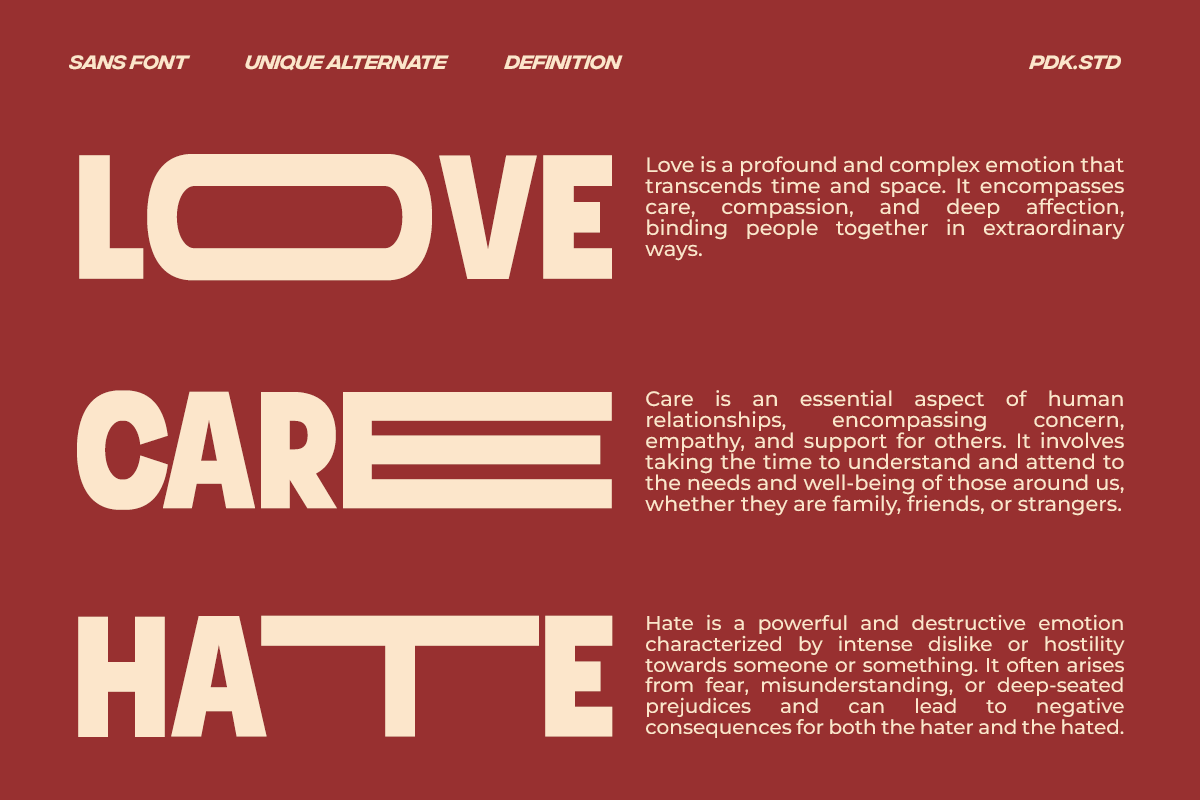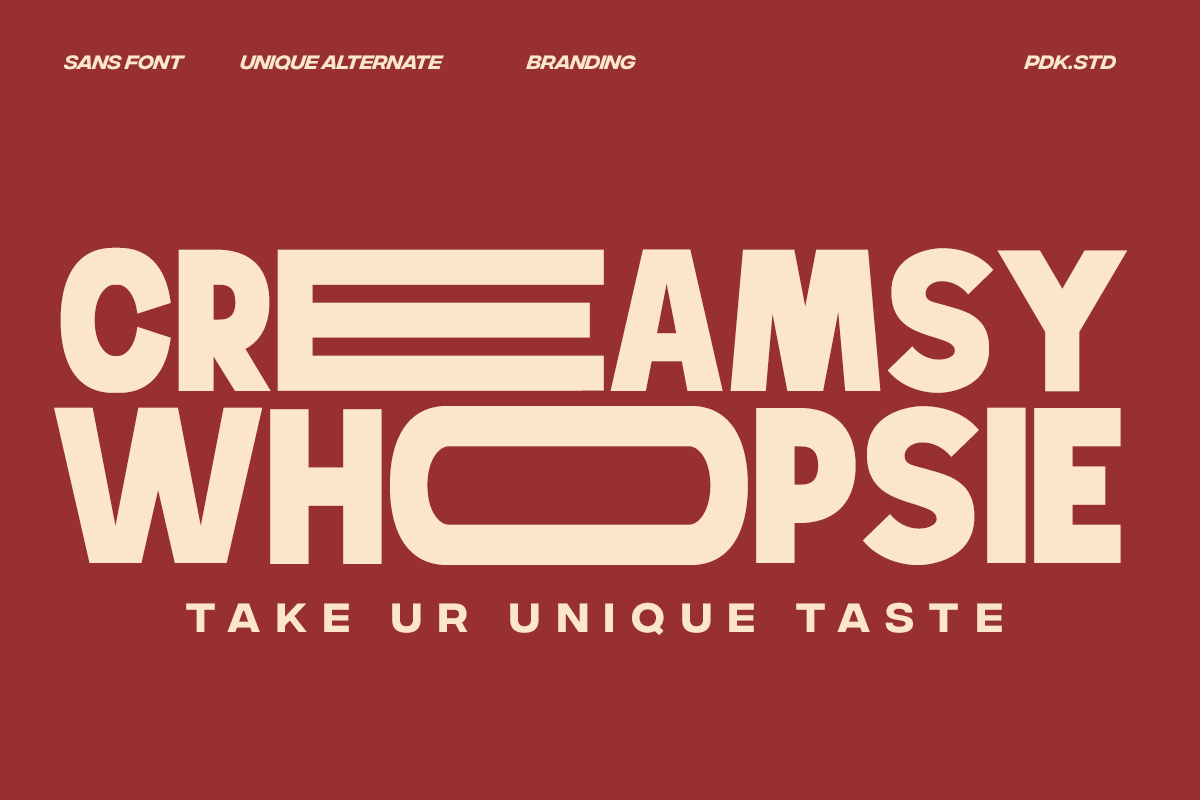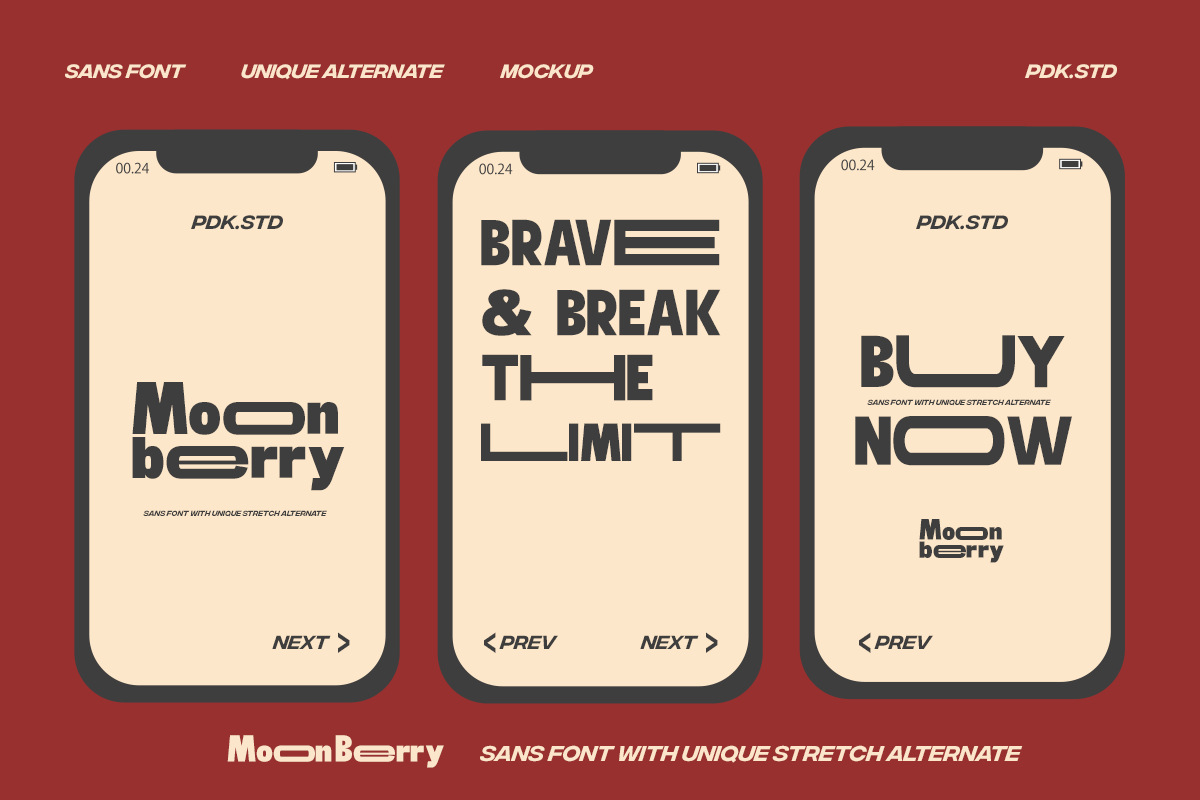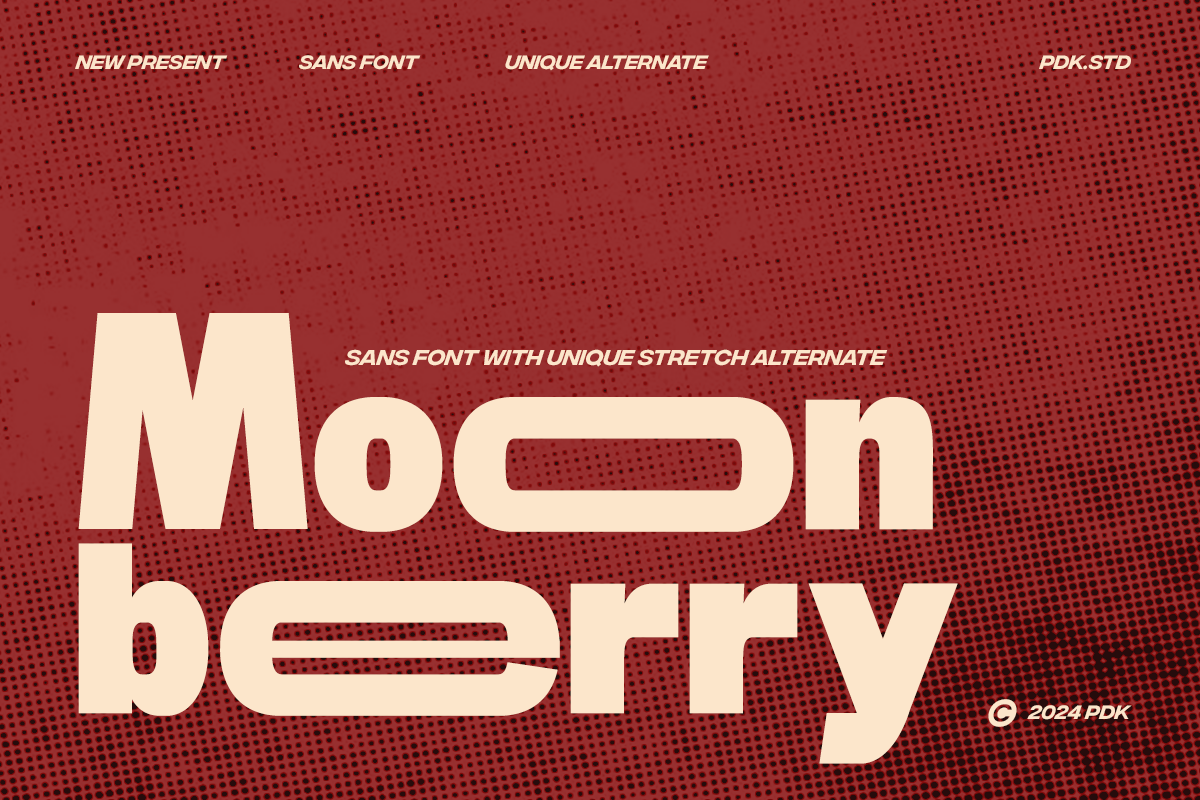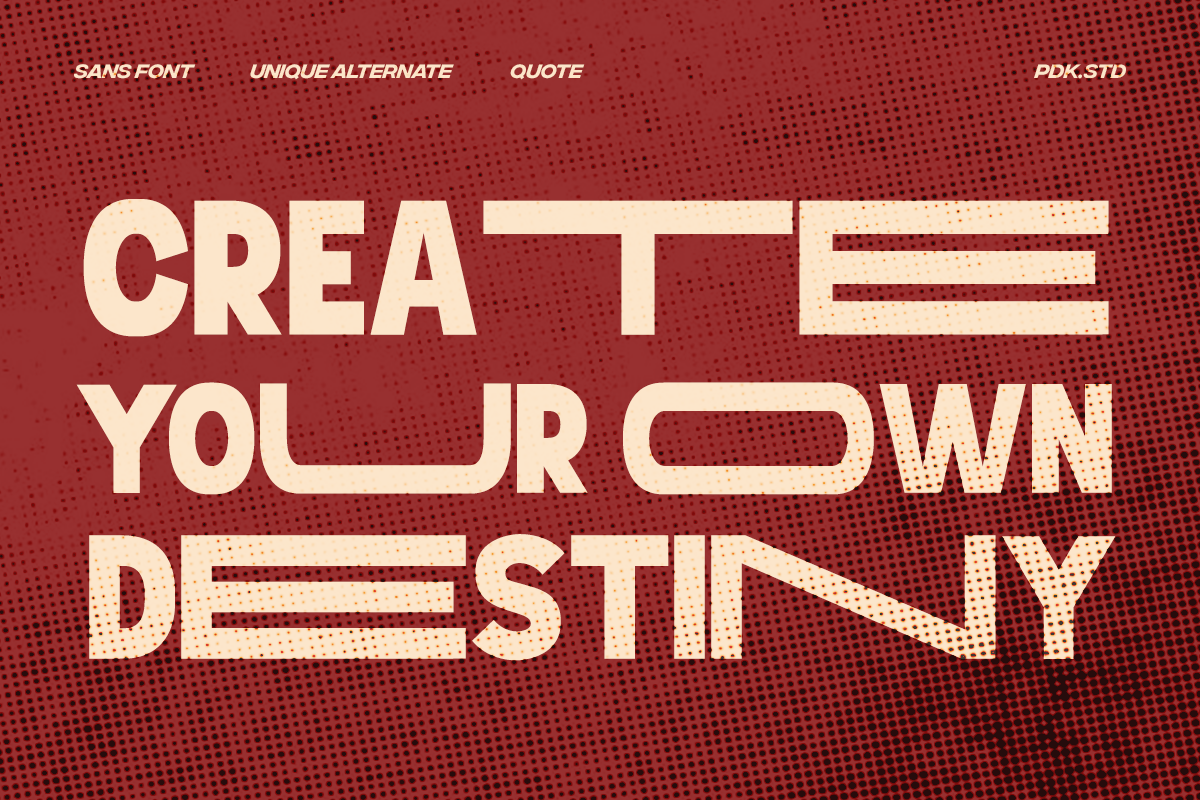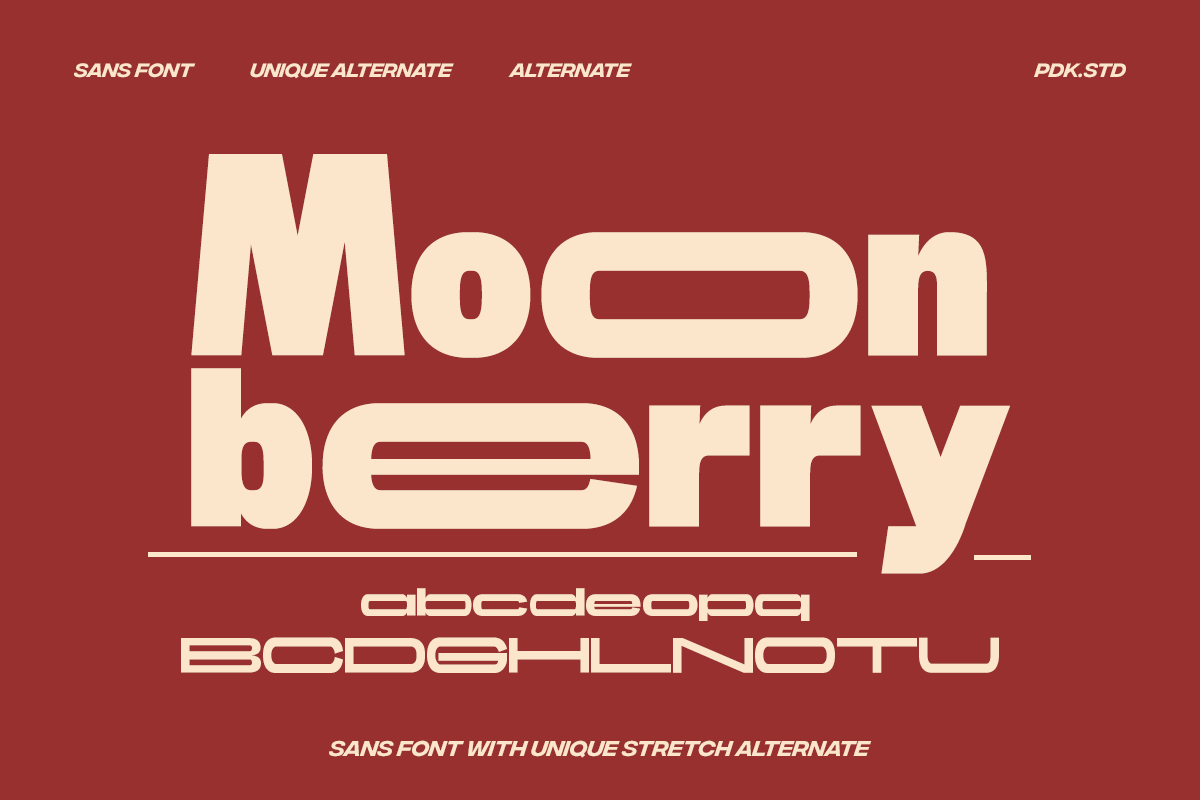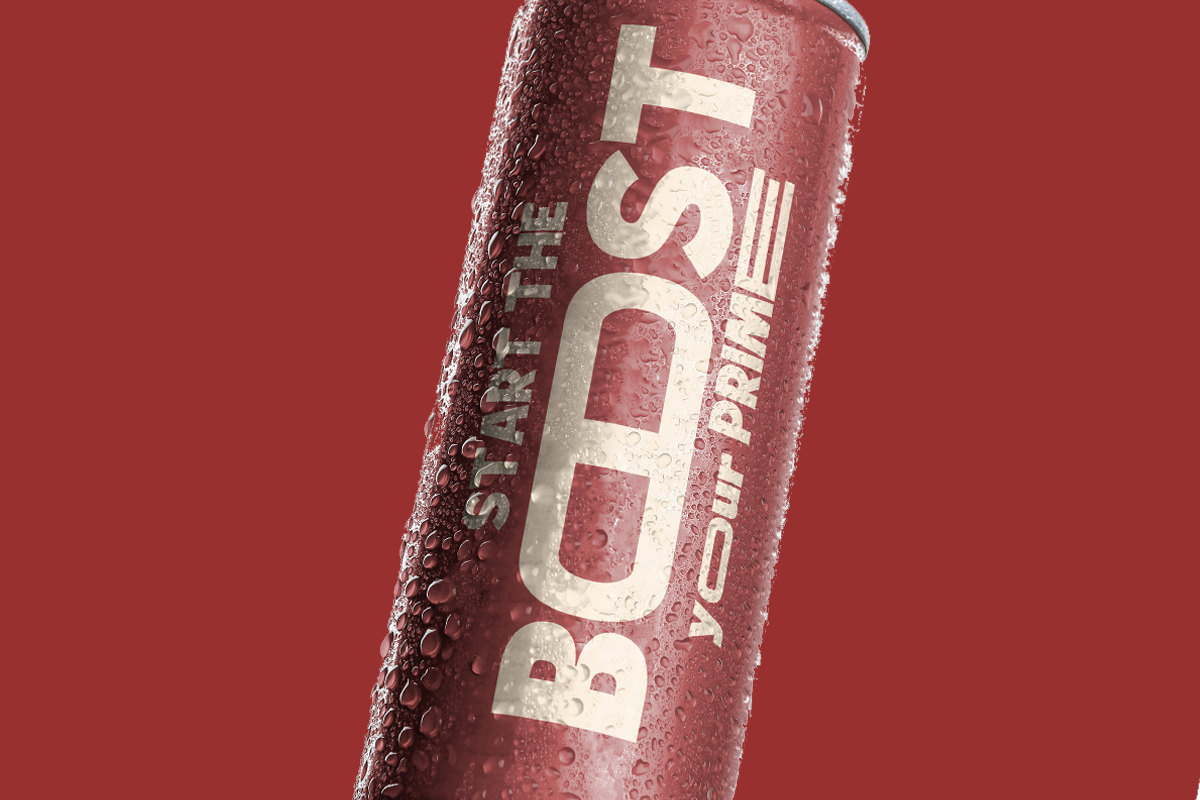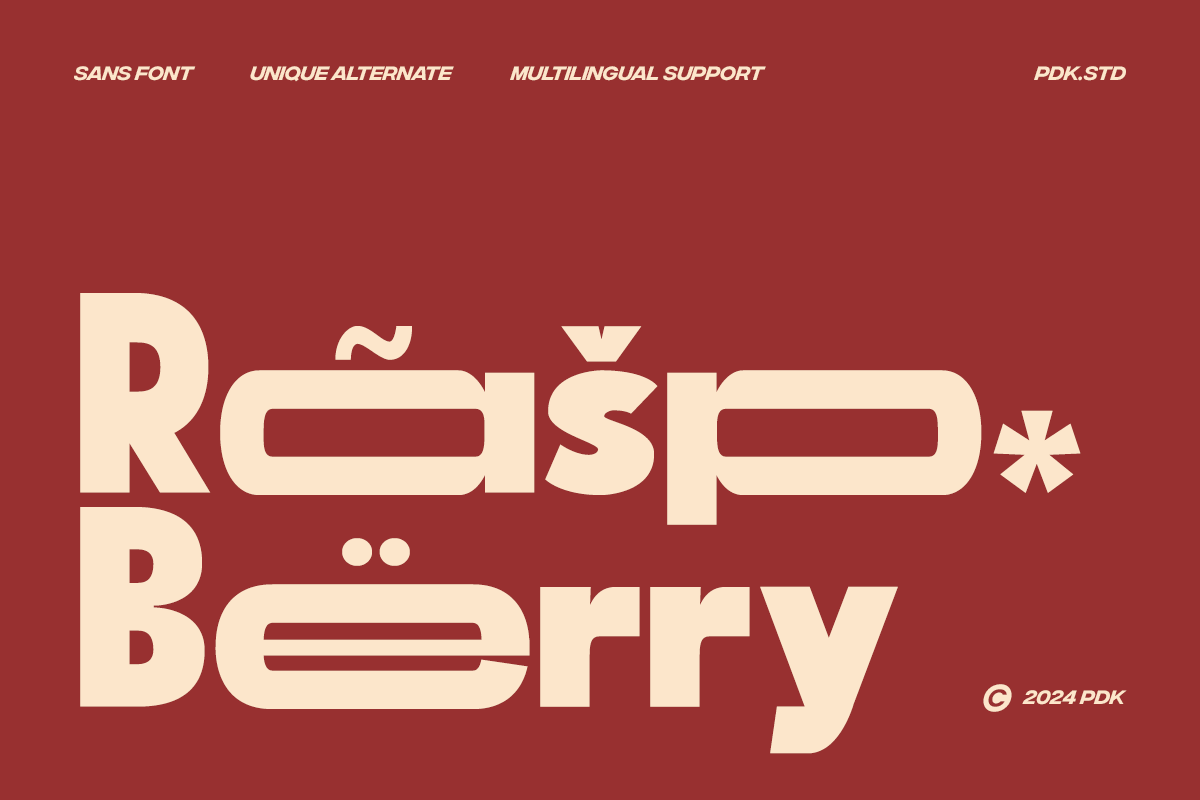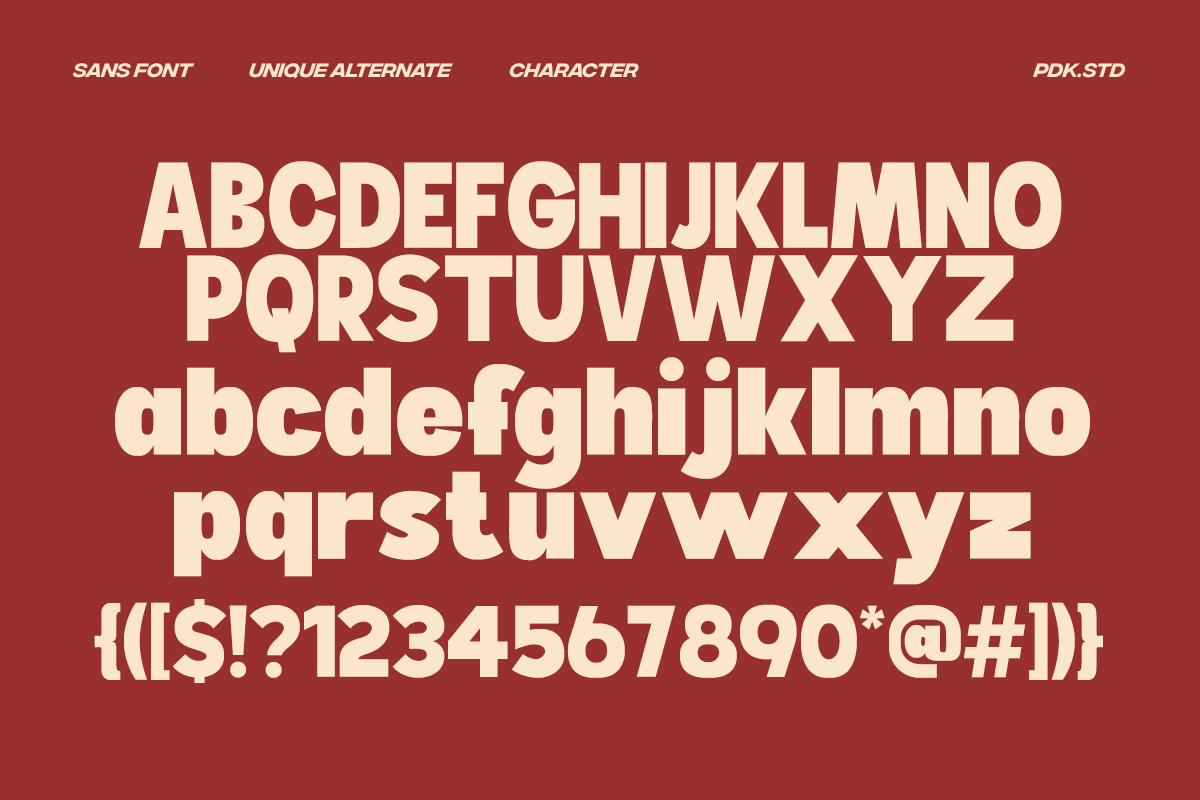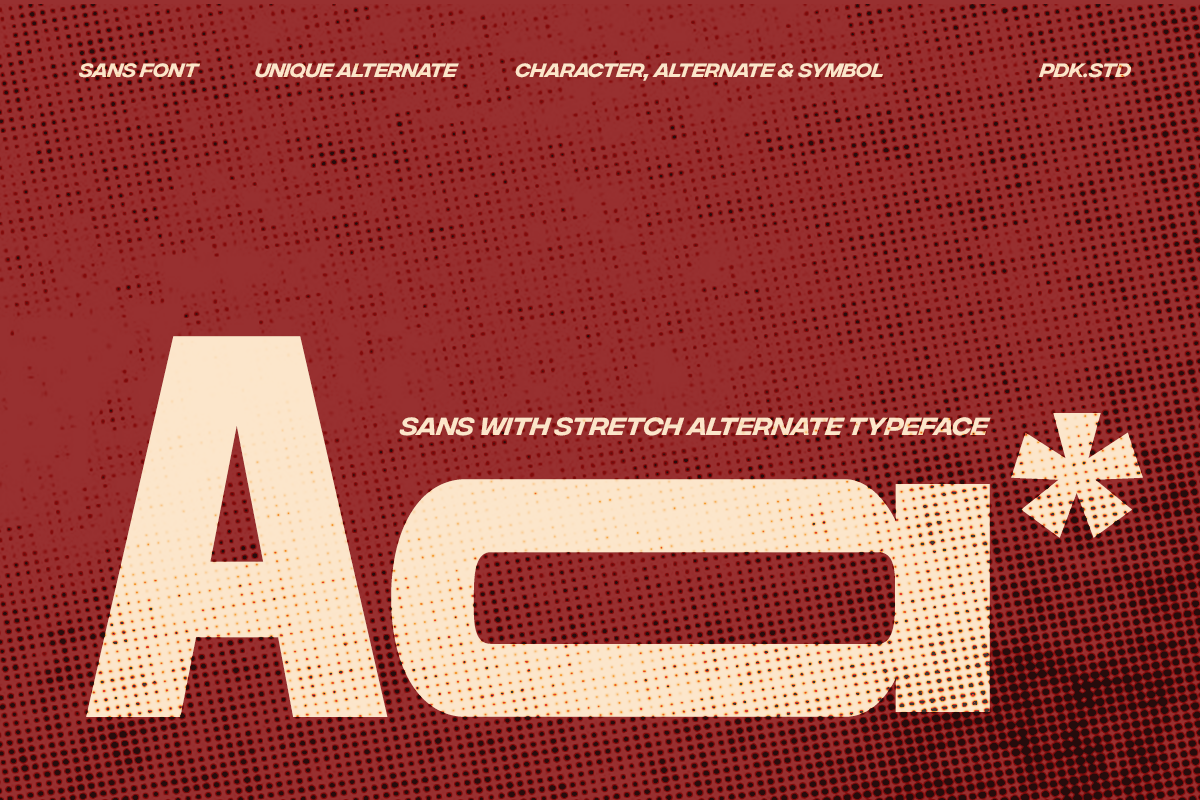
Moon Berry - Futuristic Modern Font
Introducing Moon Berry – a headline font that captures the essence of a bygone era with a delightful retro feel. Its bold strokes and quirky shapes, combined with a touch of stretch, reminiscent of futuristic posters and modern advertisements.
Moon Berry isn't just a font, it's a storyteller, bridging the gap between past and present with a modern twist :D
- Unique letterforms